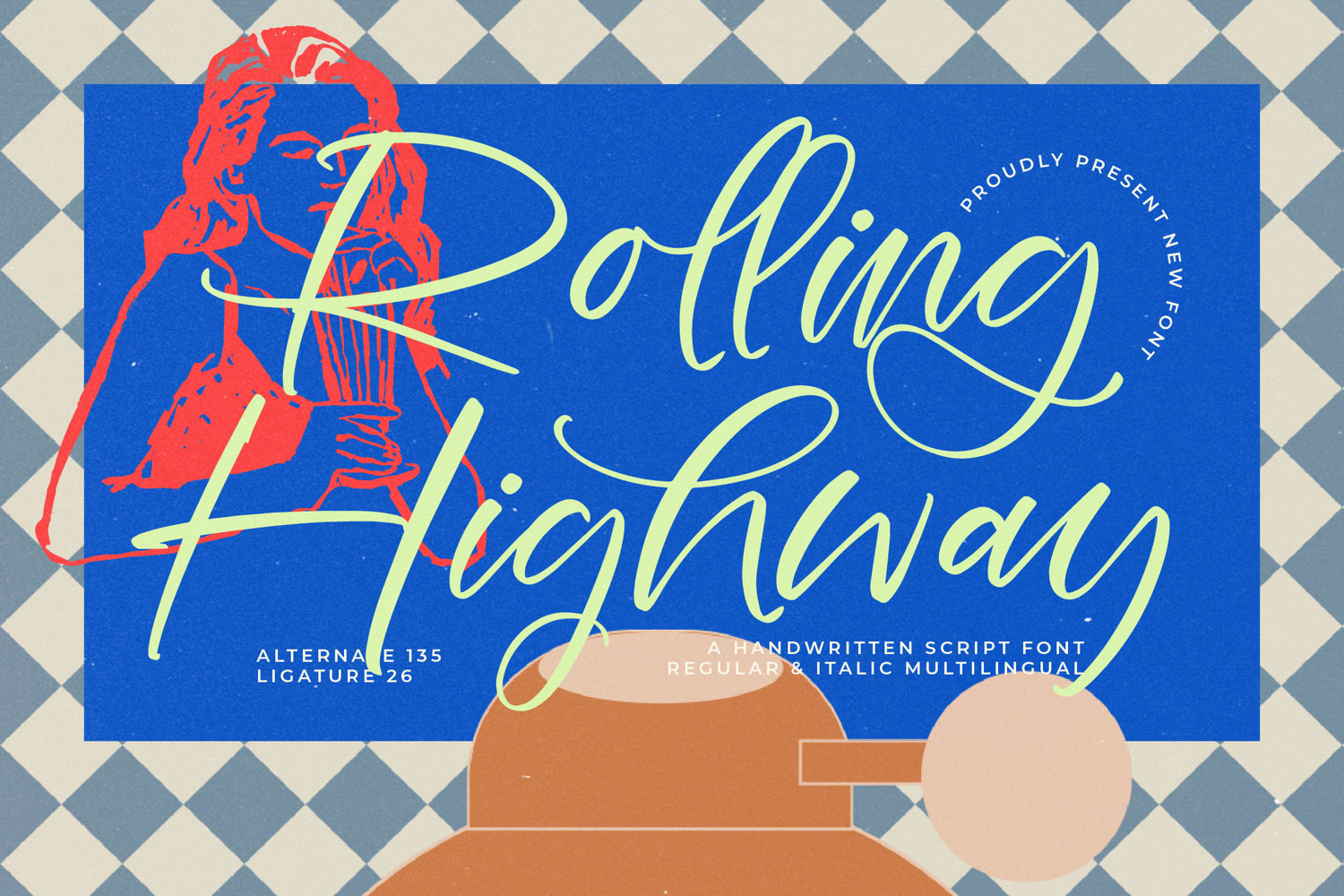
Rolling Highway - Handwritten Script Font
Unlock extraordinary typographic control through robust OpenType features, including numerous alternates and ligatures that allow for truly customized text compositions and stylistic variations. With its extensive multilingual support, Rolling Highway - Handwritten Script Font adapts seamlessly across global markets, making it incredibly versatile for international projects and ensuring your brand message resonates everywhere.